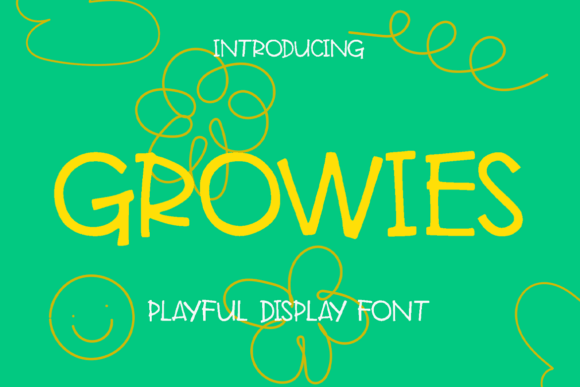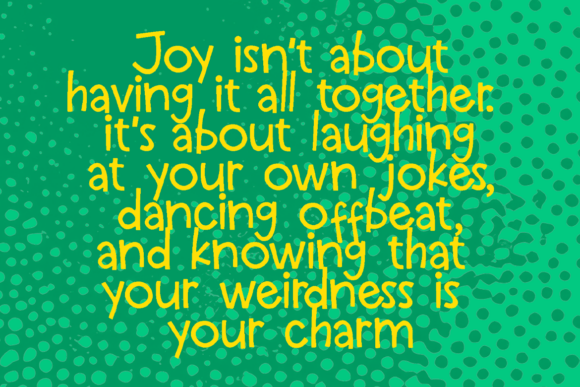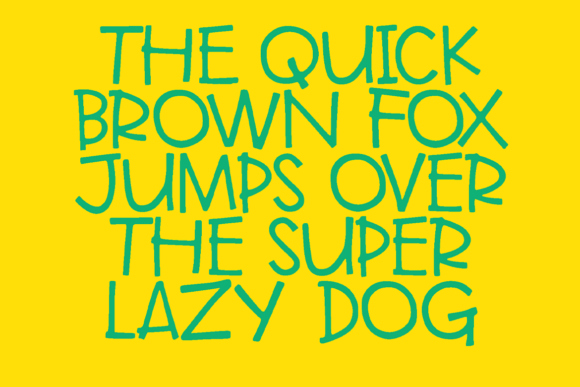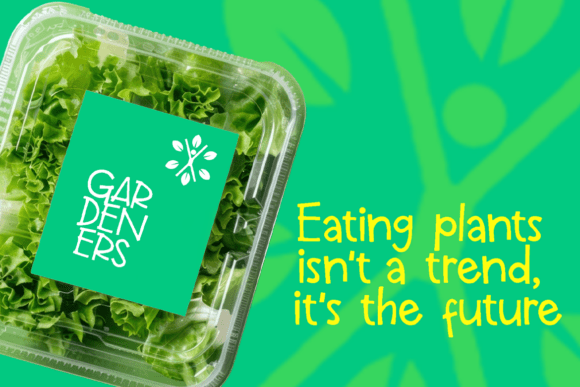
Growies Font
About the Growies Font
Crafted with precision, the Growies Font is ready to bring your ideas to life. Growies is bursting with attitude and charm. Its fluid strokes and natural flow bring a handcrafted vibe that feels effortlessly cool. Whether you’re designing bold branding, stylish merch, or heartfelt invites, this font delivers a personal touch that’s both modern and memorable
Growies excels in headlines, short-form text, and branding applications where a handcrafted, slightly rebellious feel is desired. It’s ideal for logos, posters, and packaging for products emphasizing individuality and creativity. Avoid using Growies for body text or long paragraphs; its informal nature and varying stroke weights hinder readability in extended use.
Consider pairing Growies with a clean sans-serif like Montserrat for a balanced contrast, or a geometric sans-serif such as Futura for a more modern, minimalist approach. For a touch of elegance, a delicate serif like Lato can complement its playful energy.
The font’s overall personality is best described as bold, playful, and modern, with a hint of handcrafted charm. It suits brands targeting a younger demographic, those promoting artisanal goods, or projects with a vibrant, slightly unconventional aesthetic.
Growies Font Usage Examples
Growies Font Example